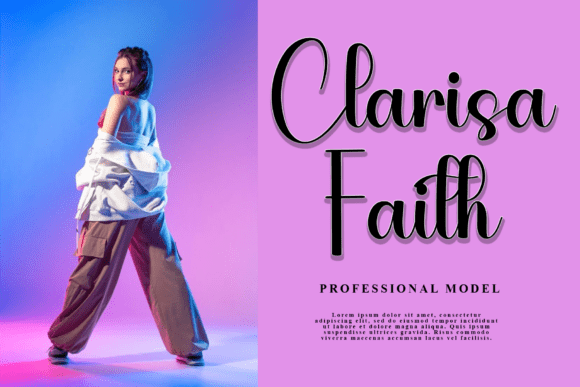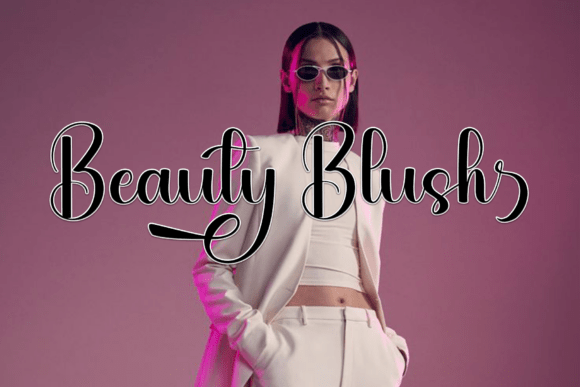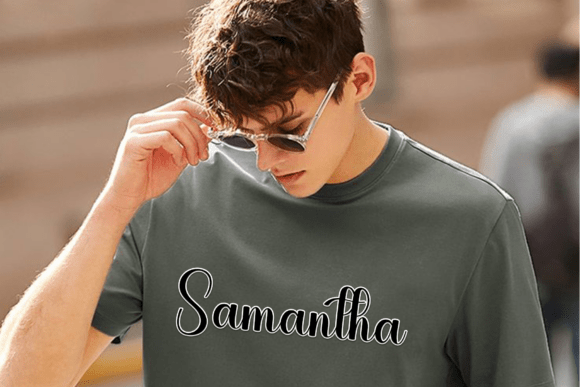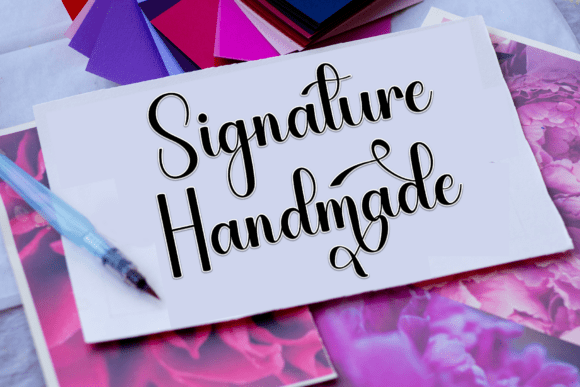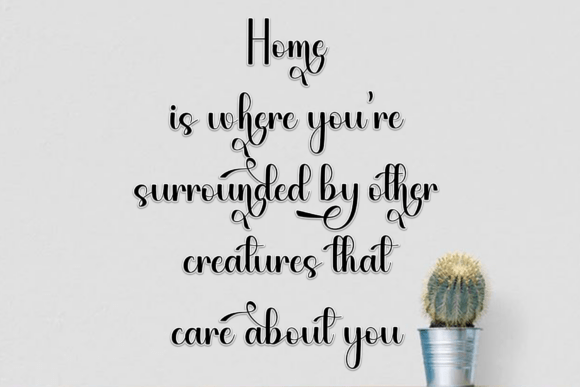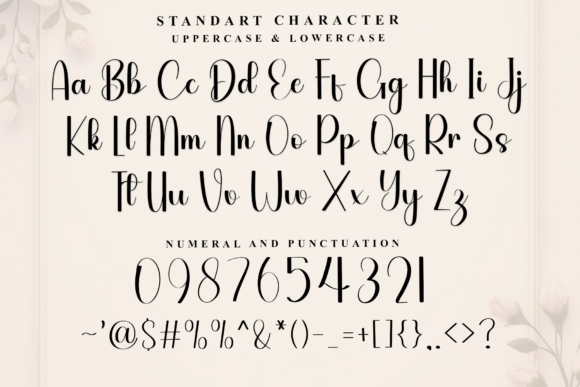
Introduction to Beach Dandelion Font
As I sat at my desk, surrounded by scraps of paper and half-finished holiday cards, I stumbled upon the perfect design resource to bring my creative project to life: the Beach Dandelion Font. Its festive and merry feel instantly transported me to a winter wonderland, filled with joy and magic. With its whimsical flair and decorative elements, this font adds a touch of enchantment to any design, making it perfect for greeting cards, gift tags, and holiday-themed projects.
Key Features of Beach Dandelion Font
- Unique and Creative Design: The Beach Dandelion Font is a high-quality, hand-drawn design resource perfect for creative projects that require a touch of whimsy and charm.
- Transparent Background: Each letter in the Beach Dandelion Font features a transparent background, allowing for seamless integration with any design or color scheme.
- Large Character Set: The Beach Dandelion Font includes a large character set, including uppercase and lowercase letters, numbers, and punctuation marks, making it suitable for a variety of design applications.
- Perfect for Design Projects: This font is ideal for creative projects that require a unique and eye-catching design, such as logos, branding materials, and promotional graphics.
Honest Review: Beach Dandelion Font
I recently stumbled upon the Beach Dandelion Font, and I must say, it’s a beautiful addition to any creative project. The high quality of this font makes it a great design resource for any designer or artist looking to add a touch of elegance to their work.
The font itself is a lovely combination of soft and delicate lines, perfect for creating a whimsical feel. It’s also available as a free download, which is a definite bonus. One of the standout features of this font is its transparent background, which makes it easy to use on any background without worrying about clutter.
- Beautiful, high-quality design
- Perfect for creative projects that require a touch of elegance
- Transparent background makes it easy to use
- Only one style is available (no bold or italic options)
- May not be suitable for projects that require a lot of bold text
Overall, I’m really impressed with the Beach Dandelion Font. It’s a great addition to any design resource library, and I would highly recommend it for any creative project that requires a touch of elegance.
Tips for Getting the Most Out of Beach Dandelion Font
To get the most out of Beach Dandelion Font, use it for creative projects that require a high-quality, transparent background. The font’s delicate design makes it perfect for adding a touch of whimsy to your designs.
Beach Dandelion Font is commonly used for invitations, greeting cards, and other paper crafting projects. Its delicate design and transparent background make it perfect for creating beautiful, layered designs.
Alternatives to Beach Dandelion Font
1. Floral Crush Font
The Floral Crush Font is a beautiful, high-quality font that’s perfect for designers looking to add a touch of whimsy to their creative project. With a transparent background, this font is ideal for use on various design resources, including web design, print materials, and digital products. When to use: For designs that require a delicate, vintage feel. Compared to Beach Dandelion Font, Floral Crush Font has a more subtle, intricate design that’s suitable for a wider range of applications.
Yes, the Beach Dandelion Font includes a transparent background option, allowing you to easily integrate it with your design. This feature is particularly useful for creating visually appealing designs with a seamless background.
Q: Can I customize the Beach Dandelion Font to fit my design project’s specific needs?
While the Beach Dandelion Font is a high-quality design resource, it’s not customizable in the classical sense. However, you can experiment with different font sizes, colors, and combinations to create a unique look that suits your creative project’s requirements.